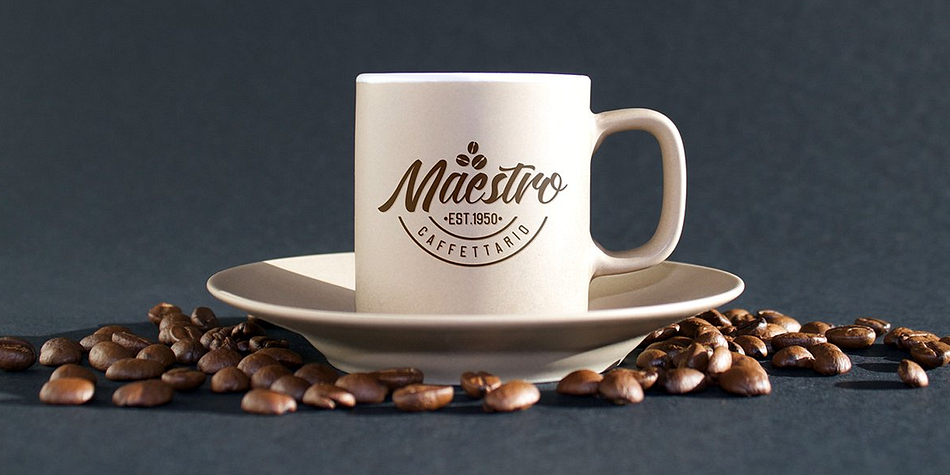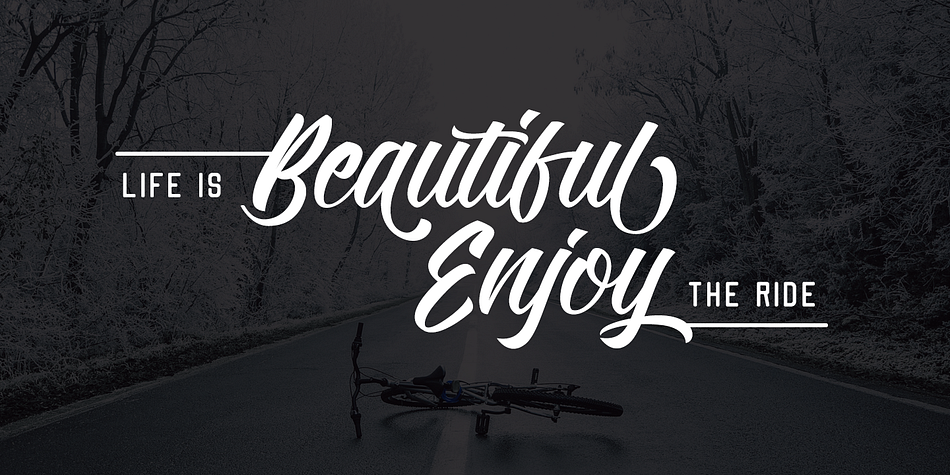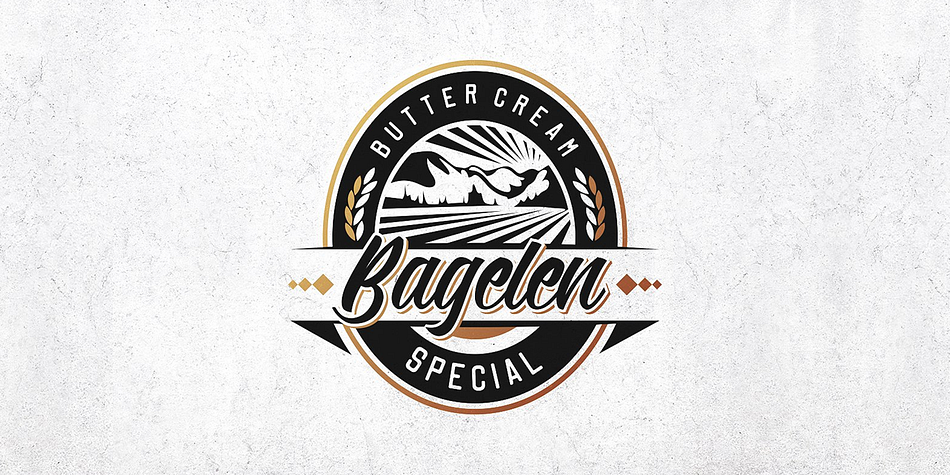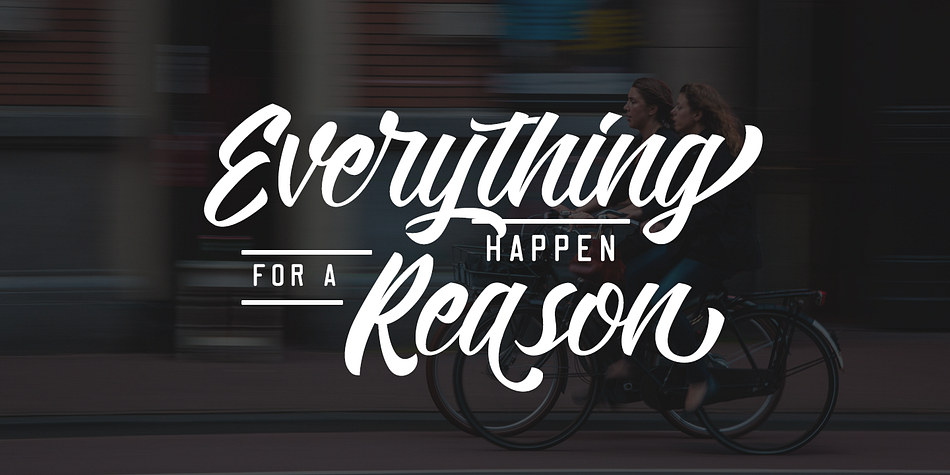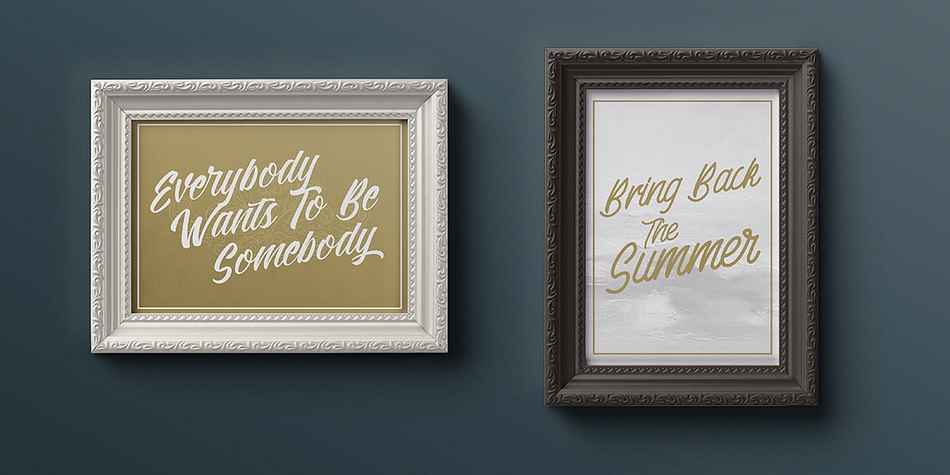
Designed by Hendry Juanda, Kadisoka is a multiple classification font family. This typeface has five styles and was published by Letterhend Studio.
KADISOKA SCRIPT
The main font of this product with total 680++ glyphs! including open type features like ligatures, stylistic alternate, and lots of Stylistic Set. This typeface is based on manual handwriting which is very suitable for any design needs you have especially for script logotype project.
KADISOKA MONOLINE
With total 180++ glyphs with upper and lowercase Standard Characters, Punctuation, Numerals including ligatures and stylistic alternate as well.
KADISOKA SANS
Neat and nice complemetary typeface which is perfect to combined with the other kadisoka font, or used as main font.
KADISOKA HAND
Typeface with hand-writing feel, perfect for fun and casual project. Works well as complementary font and main font.
KADISOKA SWASHES Contain swashes and catchwords that you will need to make your project looks even more awesome!